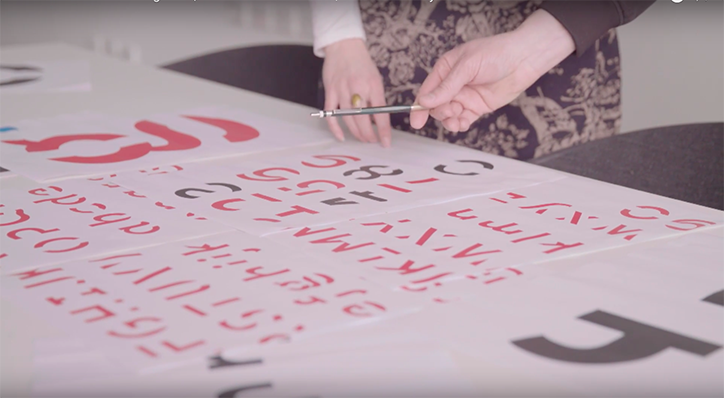
Student-friendly new typeface Sans Forgetica claims to boost memory
Forgetfulness is a terrible thing, isnt it? One minute you’re bright, alert and ready to make a start on…on…oh God, nope, it’s gone. No idea. Oh right, yeah, yeah, that was it: we were going to tell you about a new font that could come in really handy.
The behavioural business lab and design school at Melbourne’s RMIT University have partnered to produce a new typeface which they claim can “help people remember more of what they read,” with the intention being to aid students who need to retain huge chunks of information ahead of exams.
Sans Forgetica — which is available as a free download via RMIT’s website — combines “psychological theory and design principles,” in order to “improve retention of written information.” It does this, and the Guardian reports that in a test of 400 students, 57% of text written in Sans Forgetica was remembered — compared with 50% in plain Arial — by utilising an unusual combination of a backwards slant and gaps in the letterforms themselves.
A spokesperson for RMIT says, “the font was developed using a learning principle called ‘desirable difficulty’, where an obstruction is added to the learning process that requires us to put in just enough effort, leading to better memory retention to promote deeper cognitive processing.”
While it’s unlikely you’ll want to use it as part of your every day reading experience, Sans Forgetica could be a handy type-tool for the stressed students in your life.